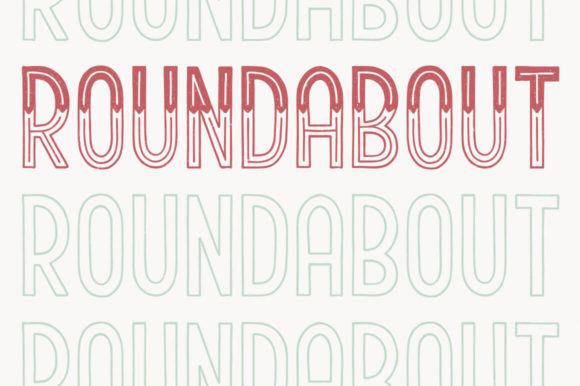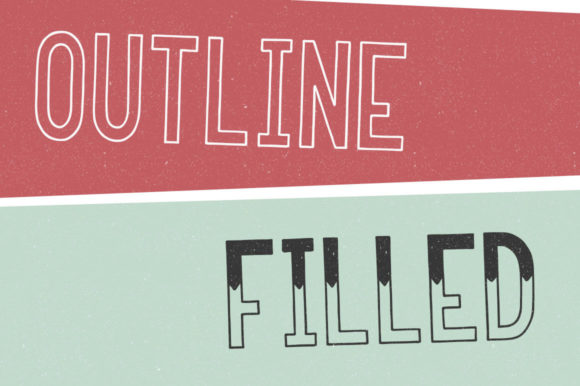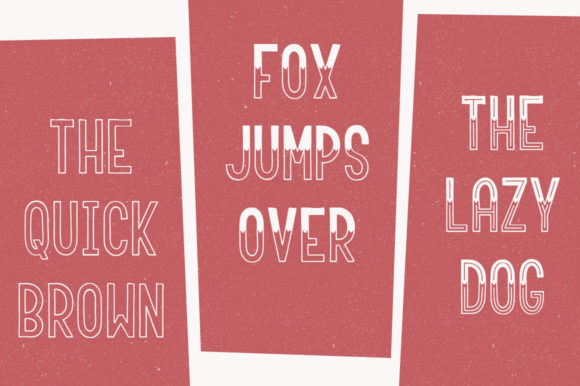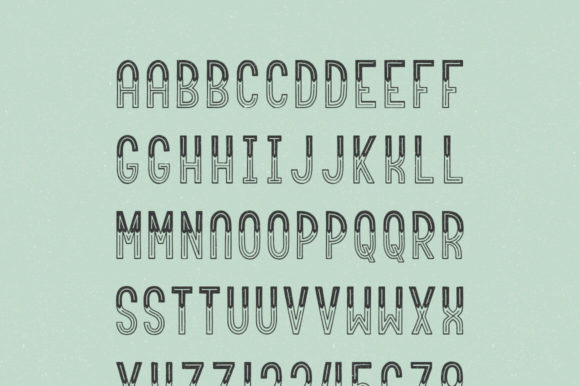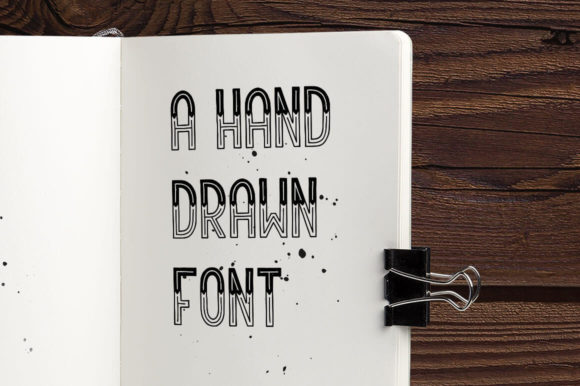
Roundabout Font
About Roundabout Font
The Roundabout is a hand drawn, top heavy font that comes in three variations: a regular version with decorative fill and inner lines, and simplified options with just the fill or just the outline. The uppercase and lowercase letters are the same with the exceptions of the characters k, n, r, x, and y.